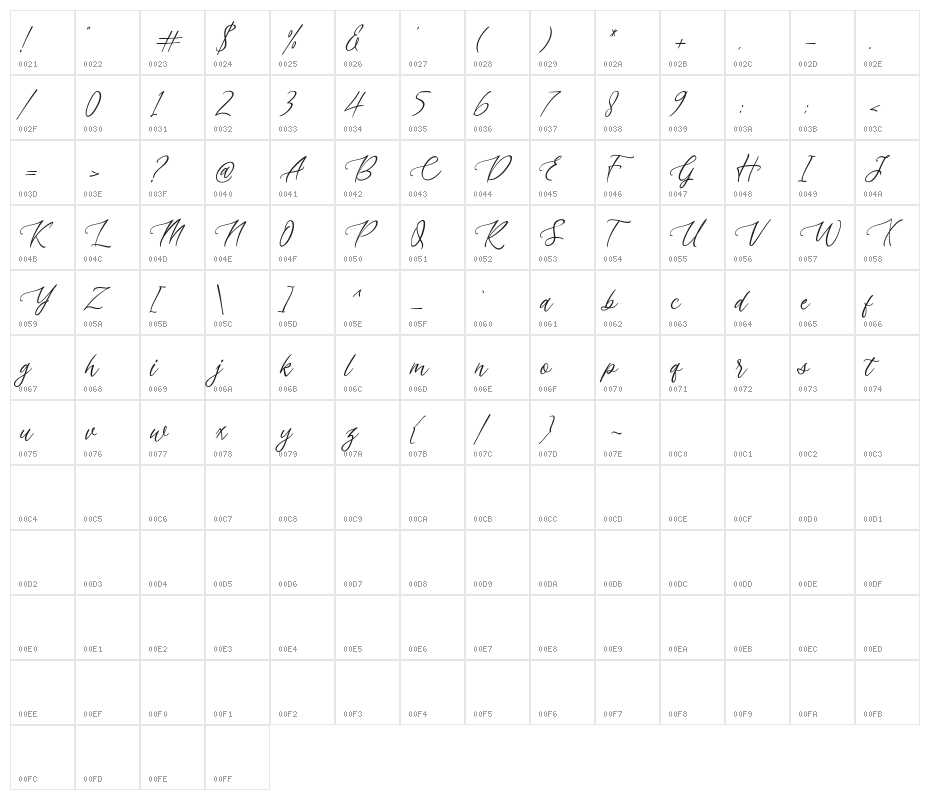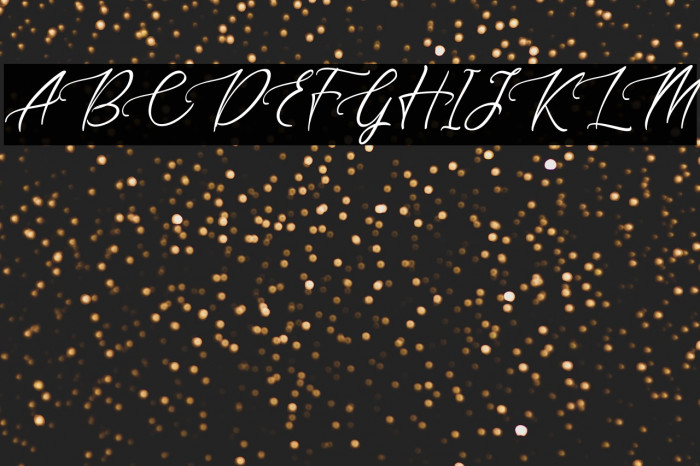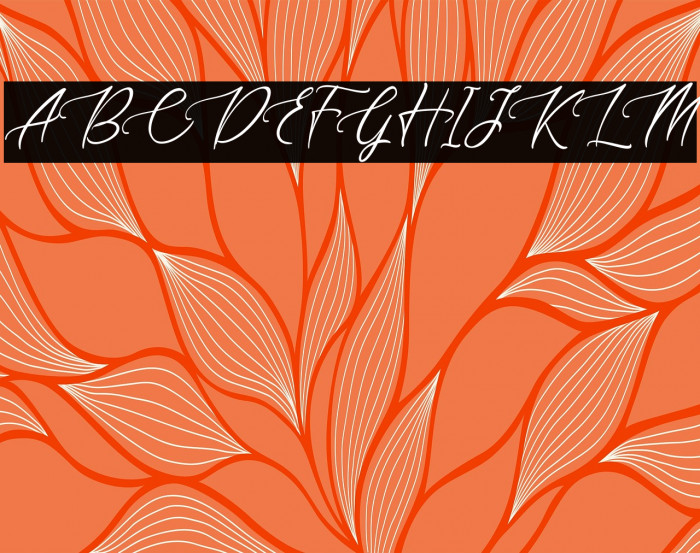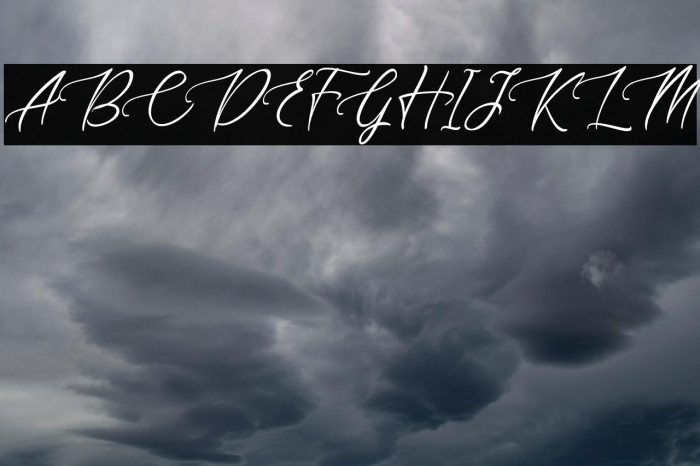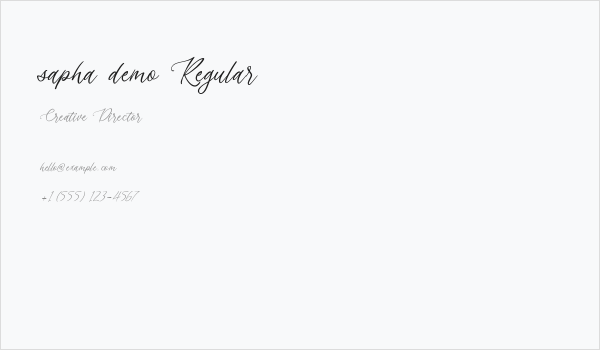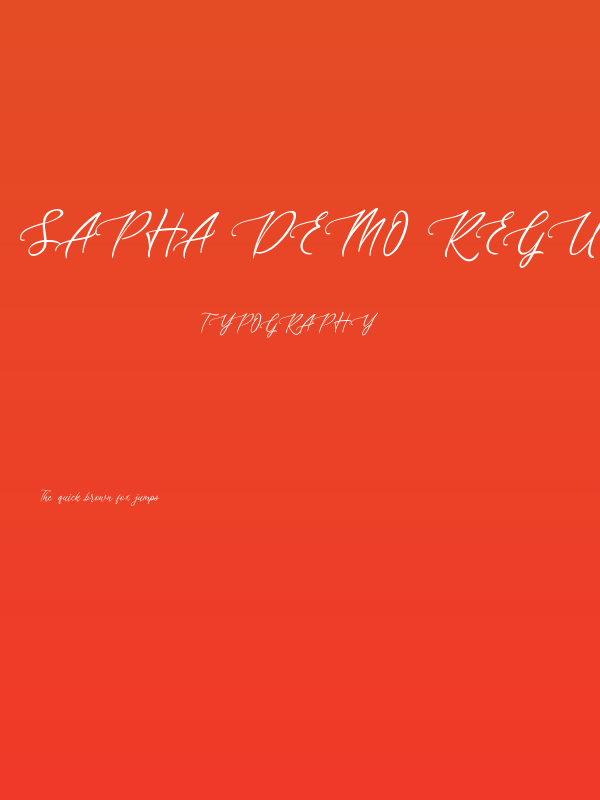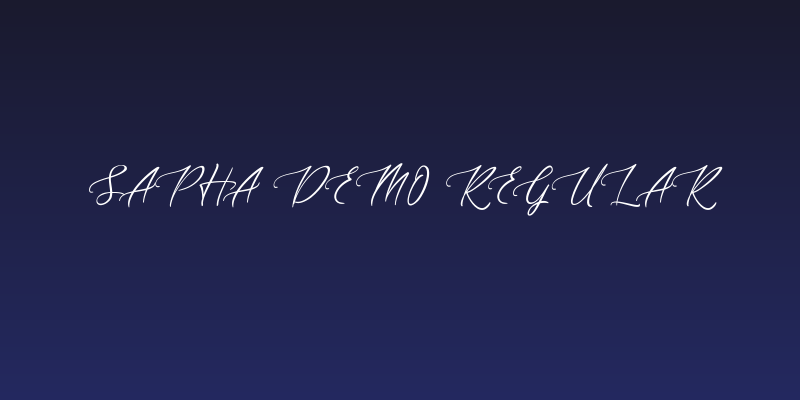
sapha demo Regular Font
sapha demo Regular Description
This font exudes a sense of elegance and fluidity, characterized by its cursive, handwritten style. The letters are connected in a flowing manner, reminiscent of traditional calligraphy. The uppercase letters are slightly more ornate, with sweeping curves and loops, while the lowercase letters maintain a consistent, smooth flow. The numerals and special characters are designed to match the overall aesthetic, ensuring a cohesive look. This font is perfect for projects that require a personal touch or a sophisticated, artistic flair.
| Proposed Projects | Ideal for wedding invitations, greeting cards, personal branding, and artistic projects. |